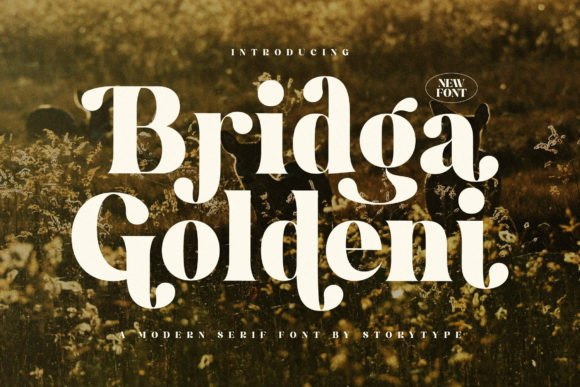
Get ready to add a touch of grace and sophistication to your creative designs with Bridga Goldeni, the masterful serif font that exudes elegance and luxury. This mesmerizing typeface, crafted by the talented team at Storytype Studio, is not just a font; it's an artistic expression that will elevate your designs to new heights of beauty and distinction.
Bridga Goldeni is a modern marvel that captures the essence of timeless typography with its refined serifs and graceful curves. Each letterform is meticulously designed to convey a sense of sophistication and poise, making it the perfect choice for logos, fashion brands, magazines, apparel, and any project that demands a touch of sophistication.
With its commanding presence and undeniable charm, Bridga Goldeni is the perfect font for creating logos that exude elegance and leave a lasting impression. Whether you're designing a logo for a high-end fashion label, a luxury hotel, or a prestigious event, Bridga Goldeni will elevate your brand identity to new levels of refinement and exclusivity.
Journey into the world of fashion and apparel, where Bridga Goldeni reigns supreme. This font effortlessly captures the essence of style and glamour, making it the ideal choice for fashion brands and designers seeking to create captivating visuals. Its chic and timeless design adds an aura of luxury to clothing labels, magazine covers, and promotional materials, ensuring that your designs stand out amidst a sea of mediocrity.
For magazines and publications, Bridga Goldeni is a font that commands attention and leaves an unforgettable impact. Its elegant serifs and graceful curves lend a sense of authority and sophistication to headlines, articles, and editorials, enhancing the overall reading experience and captivating readers from the very first glance. Trust Bridga Goldeni to elevate your magazine's visual appeal and make it a must-have for discerning readers.
Step into the realm of art and creativity, where Bridga Goldeni transforms ordinary words into captivating expressions. Its inherent beauty and charm make it an ideal choice for lettering projects, where each letter becomes a work of art. Create stunning quotes, inspirational messages, and captivating social media posts that leave a lasting impression on your audience.
Bridga Goldeni possesses an undeniable charisma that draws people in and holds their attention. Its unique appearance and captivating curves make it the perfect choice for quotes that demand to be remembered. Use Bridga Goldeni to create visuals that resonate with your audience, leaving them inspired and eager for more.
With Bridga Goldeni, the possibilities are endless. Its versatility and timeless appeal make it a valuable asset for any creative professional seeking to add a touch of sophistication and elegance to their designs. From logos and branding to fashion and apparel, magazines and publications, and lettering and quotes, Bridga Goldeni is the font that transforms the ordinary into the extraordinary.